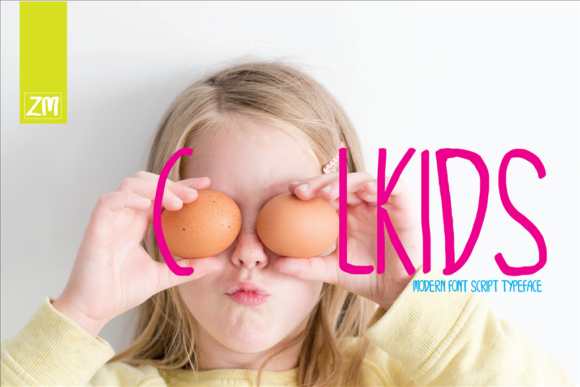
Immerse yourself in the world of typography with Coolkids Font, a captivating script that exudes a playful and carefree charm. Its unique strokes and easy-going nature make it the perfect companion for any design that calls for a touch of whimsy.
Coolkids is not just a font; it's an invitation to unleash your creativity and embrace the joy of self-expression. Its hand-drawn style adds a personal touch to your projects, making them stand out from the crowd.
Imagine the vibrant headlines of a children's magazine, the cheerful posters announcing a school play, or the heartwarming invitations to a family gathering – Coolkids Font brings a smile to every letter and transforms your words into works of art.
This versatile script is a chameleon of style, adapting seamlessly to any design aesthetic. Whether you're crafting a whimsical logo, a charming website, or a delightful social media post, Coolkids Font will effortlessly elevate your creations.